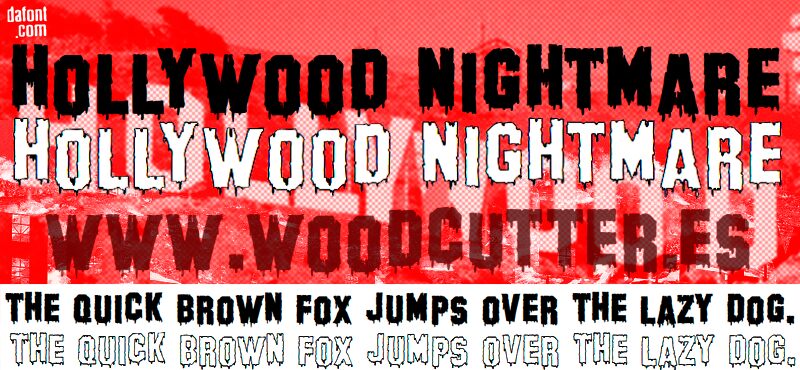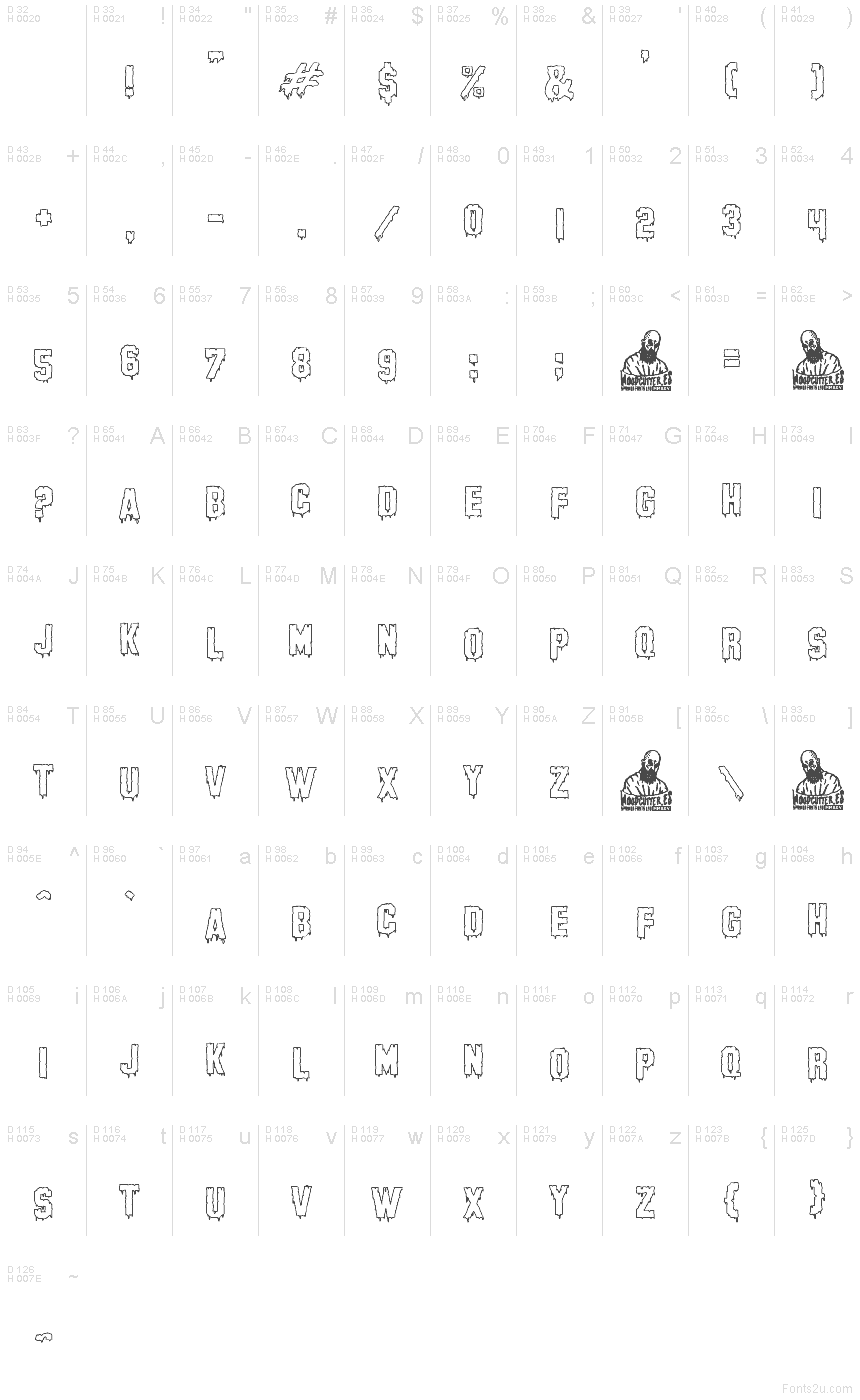
Hollywwod Nightmare Outline
Hollywwod Nightmare Outline font by Woodcutter is a free outlined horror typeface from the Hollywwod Nightmare family. Its scratchy, splintered strokes and dripping contours feel like a marquee gone feral—thin, ragged outlines that look hand-carved and a little unhinged. Letters lock together with a tense rhythm, giving headlines a bristling, night-of-the-premiere menace.
Using Hollywwod Nightmare Outline, you can push mood fast: Halloween posters, haunted house flyers, slasher film titles, escape room branding, spooky podcast covers, and eerie YouTube thumbnails. This free font shines oversized, where the wiry outline stays crisp; add a subtle shadow or glow to boost legibility on busy backgrounds. Pair with a clean condensed sans for body copy so the scares stay in the headline.